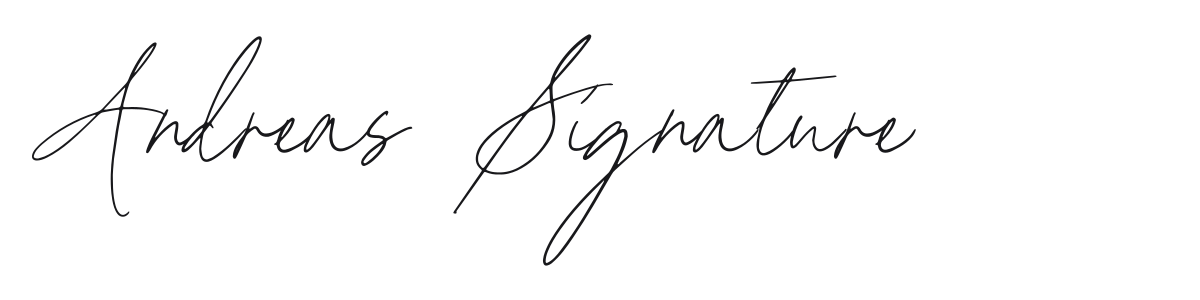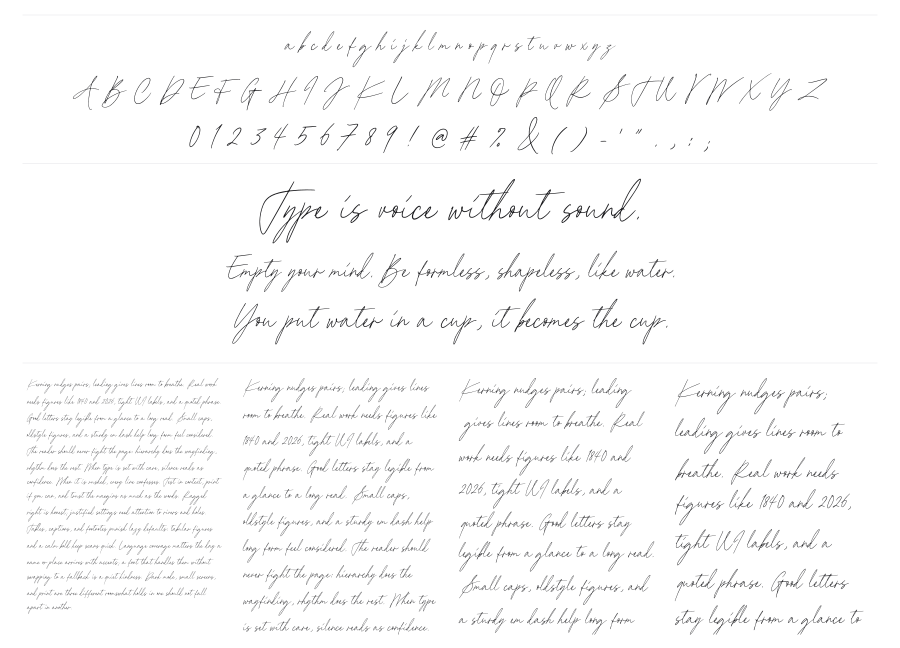
Andreas Signature
Andreas Signature is a thin, free-flowing casual script styled after an authentic pen signature. The near-hairline weight and looping, interconnected strokes give it an effortlessly personal quality that heavier or more structured scripts can't replicate. It suits brand signatures, wedding stationery, and any project that needs a handcrafted, intimate touch.